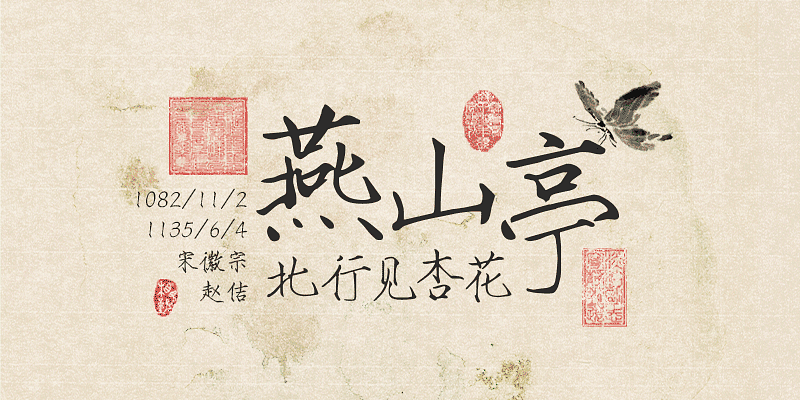
HelloFont ID Shou Jin Shu Font Free Download is an elegant Chinese-inspired typeface that blends traditional calligraphy with a clean, contemporary design. Featuring sharp, fluid brush strokes and sophisticated, flowing characters, this font is ideal for luxury branding, cultural event materials, invitations, product packaging, and editorial design where refinement and artistic expression are key.
The HelloFont ID Shou Jin Shu Font’s graceful character shapes and intricate detailing make it suitable for high-end designs that require a balance of classic tradition and modern aesthetics. Whether you're working on invitations for a prestigious event, creating branding for a high-end product, or designing culturally significant materials, this font adds a beautiful touch of elegance and sophistication.